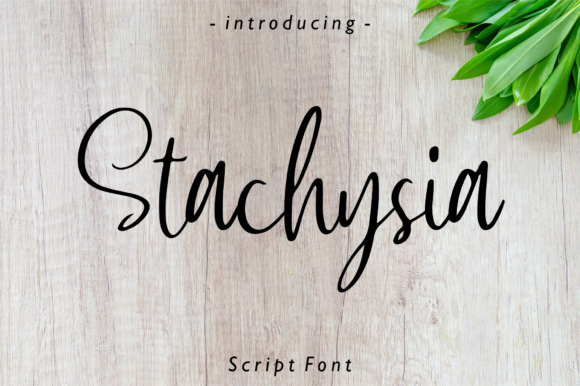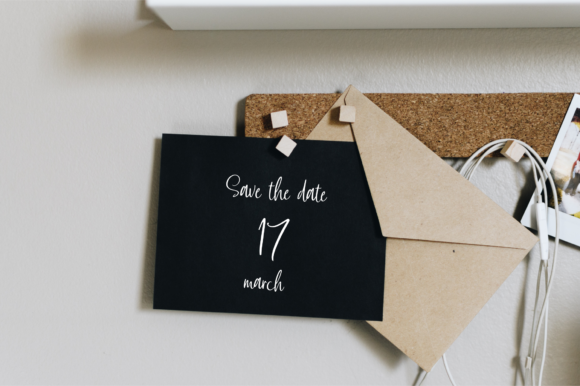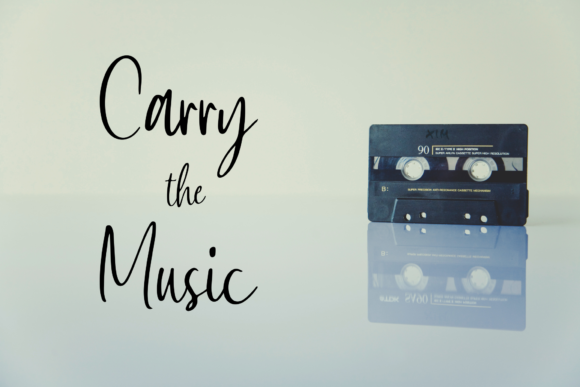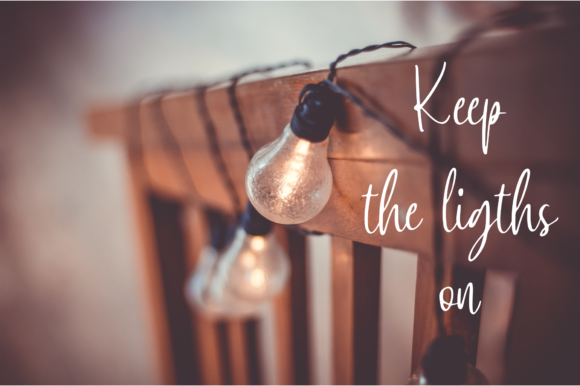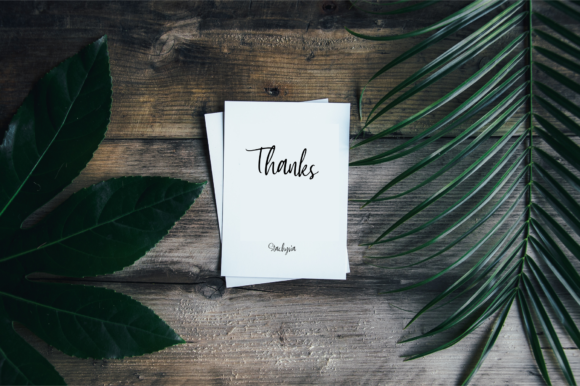
Stachysia Font
About Stachysia Font
The Stachysia is an amazing handwritten typeface. It’s perfect for quotes, wedding invitations, magazines, and much more!